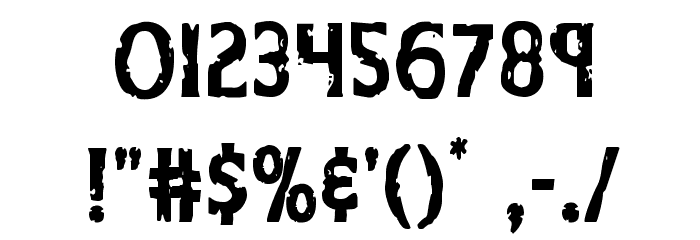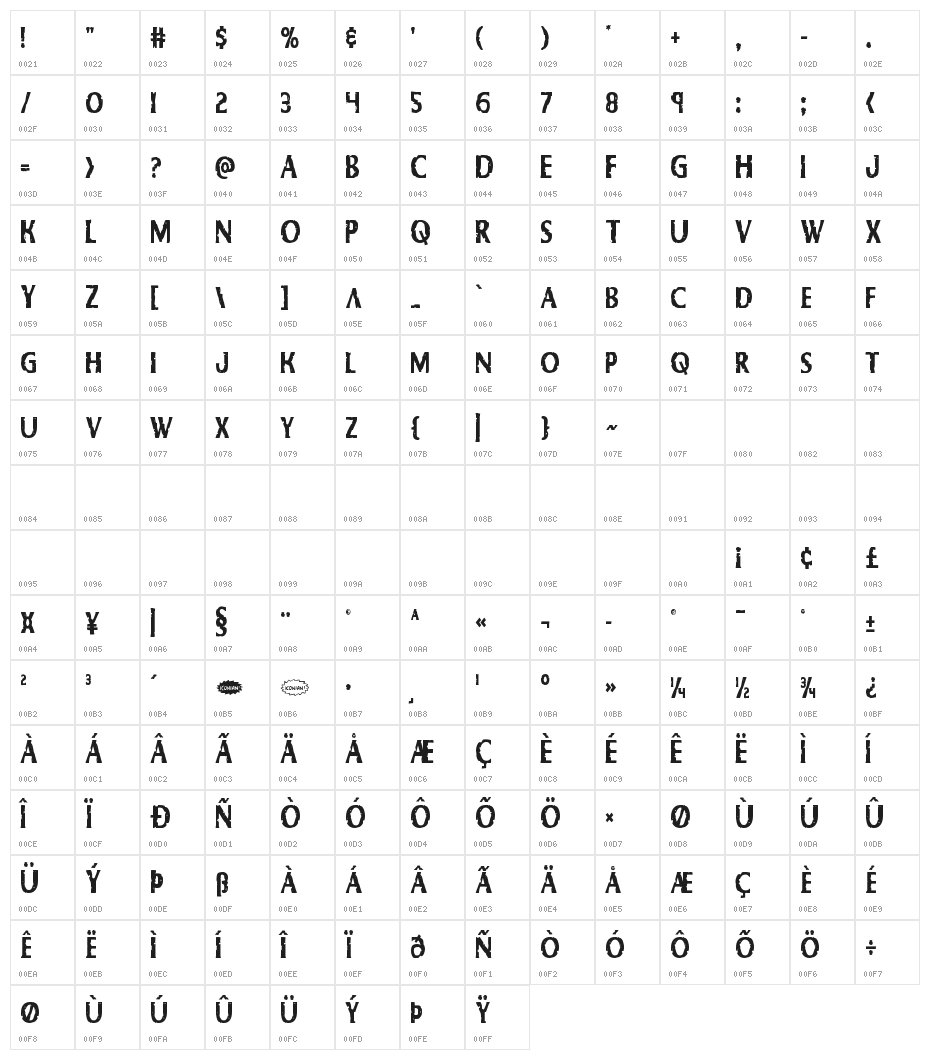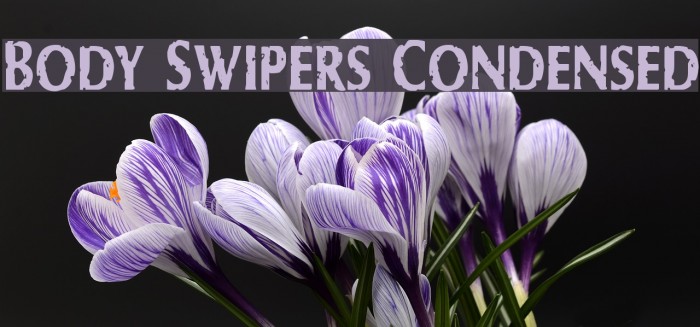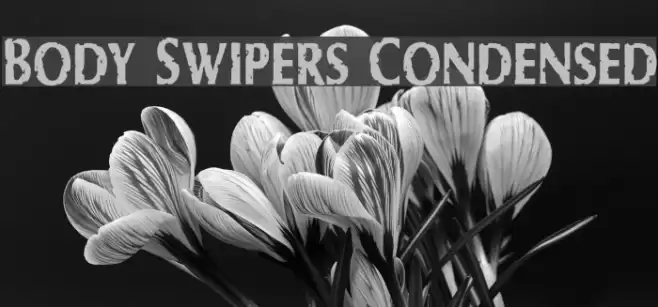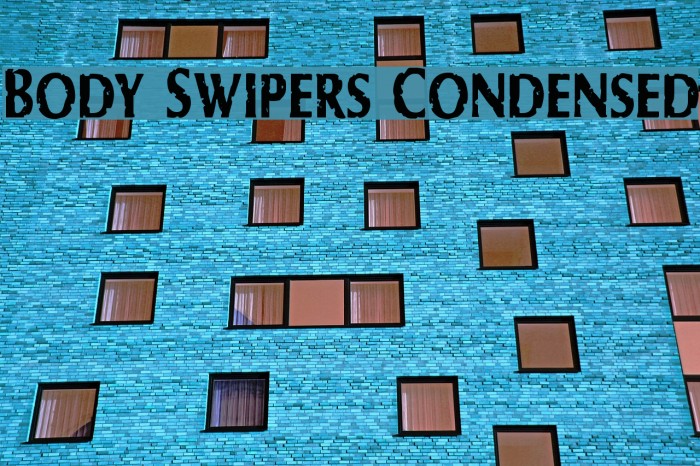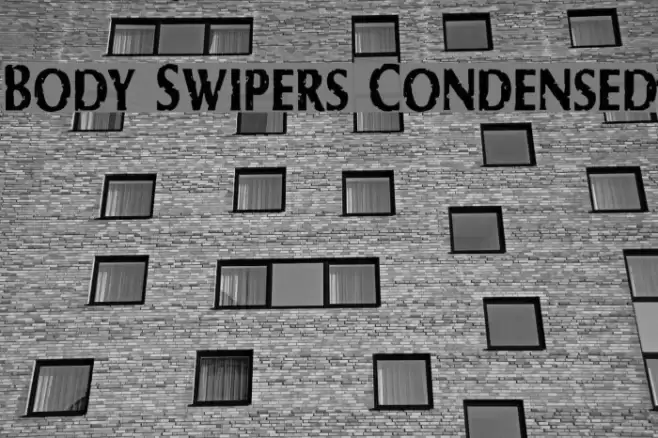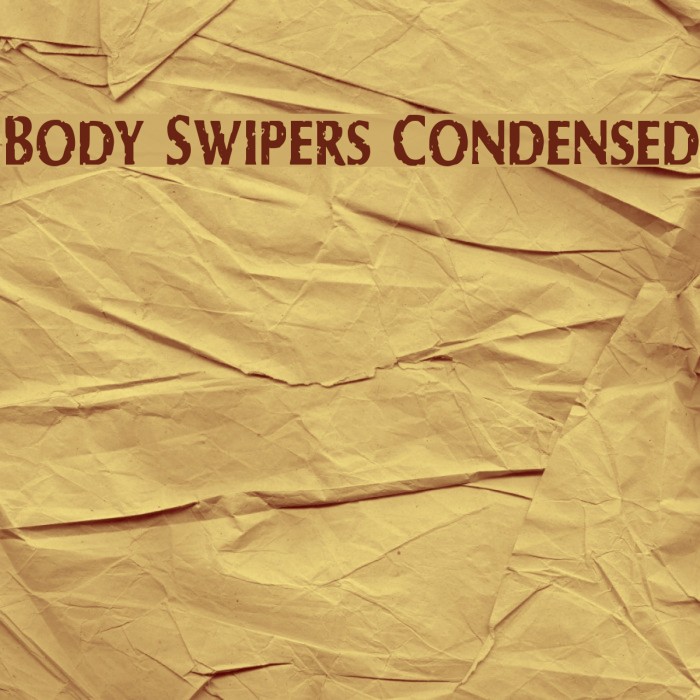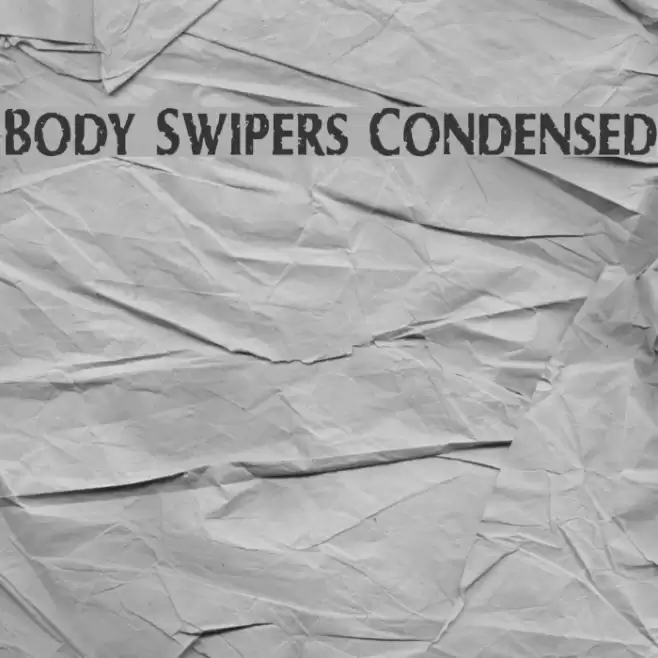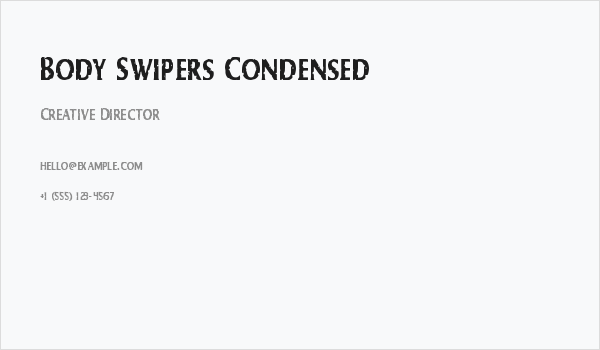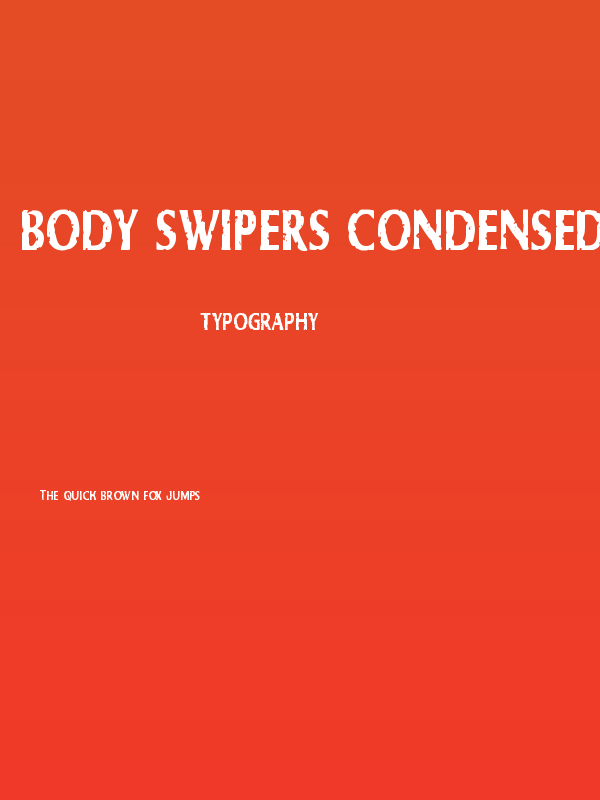
Body Swipers Condensed Font
Body Swipers Condensed Description
This font features a bold and distressed style, characterized by its rough, textured edges and condensed form. The uppercase and lowercase letters maintain a consistent height, creating a uniform appearance. The numbers and special characters follow the same rugged aesthetic, adding to the font's overall impact. Its unique, worn-out look gives it a vintage feel, making it suitable for projects that require a touch of grunge or an industrial vibe. The font's boldness ensures high visibility, while its condensed width allows for efficient use of space.
| Overall Style | Vintage, Grunge |
| Proposed Projects | Ideal for posters, album covers, branding for edgy products, or any design needing a gritty, industrial touch. |